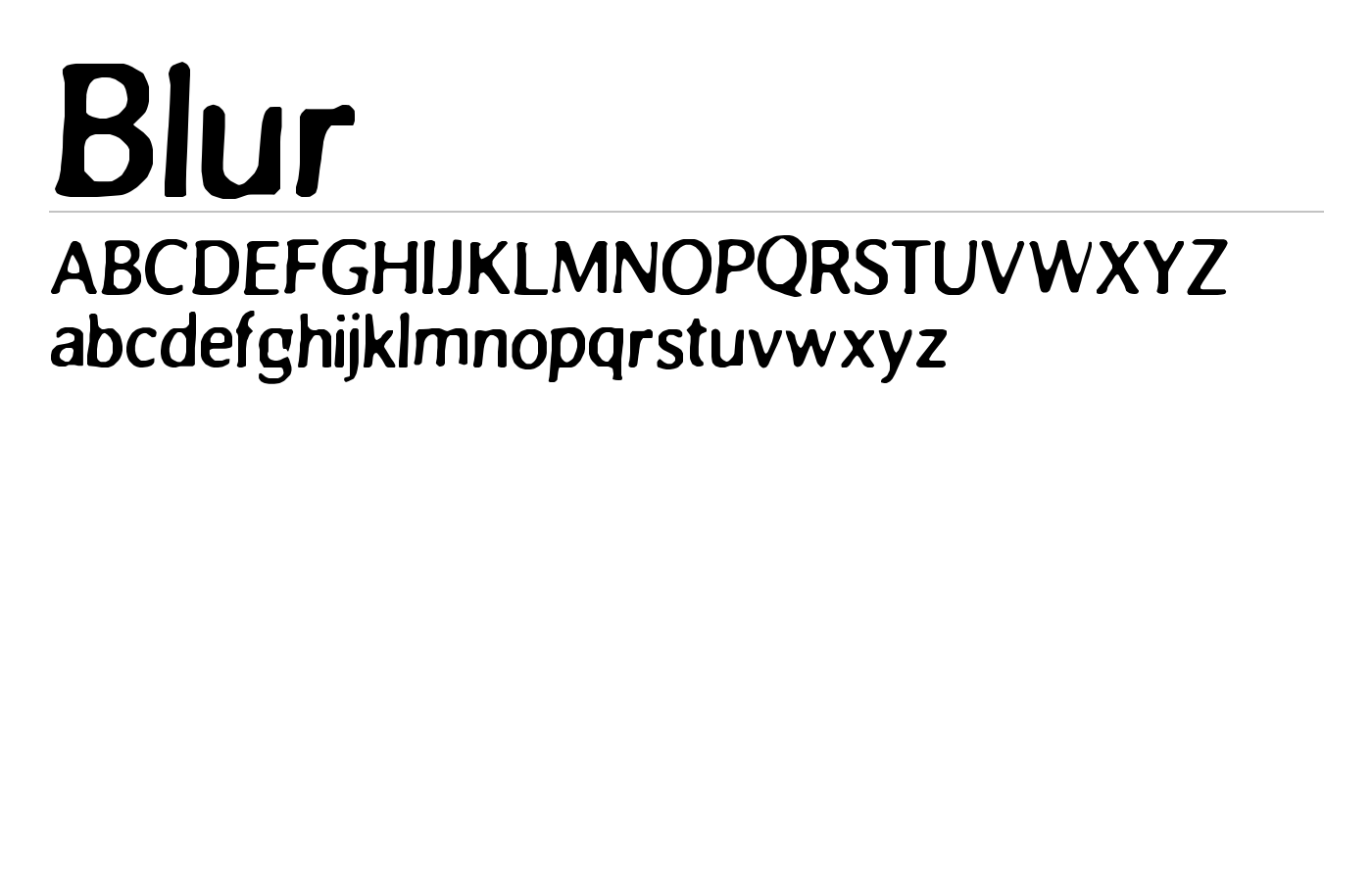
Blur Font is a quirky, hand-drawn sans serif typeface with irregular, organic shapes and a casual, artistic feel. Its medium weight and uneven stroke give it a playful, approachable personality, making it perfect for creative projects, children's books, or branding that wants to convey warmth and uniqueness. This font works well in headlines or logos where a friendly, informal style is desired.
Blur Font